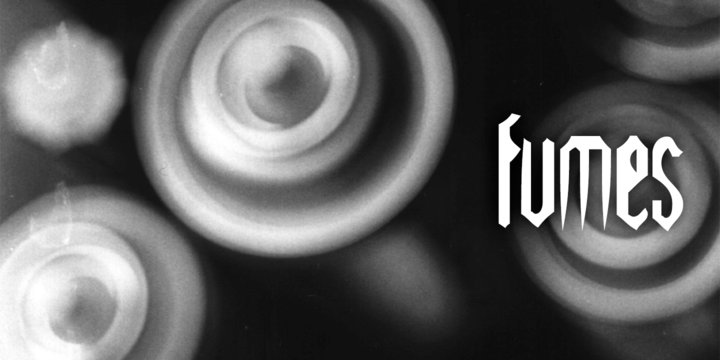
SB Splinter
by SelfBuild Type Foundry
SB Splinter is a distressed gothic headline typeface. The outlines were created with the autotrace feature in FreeHand 3.